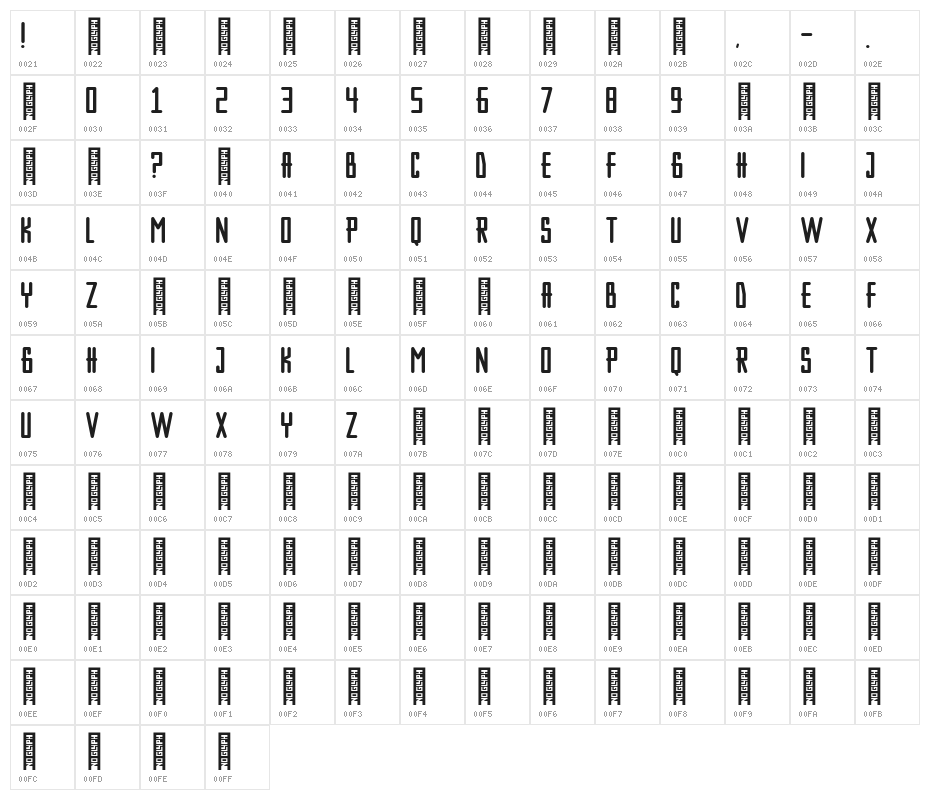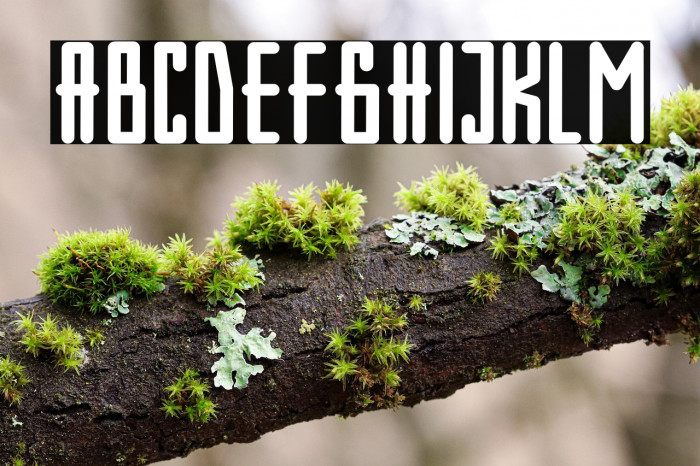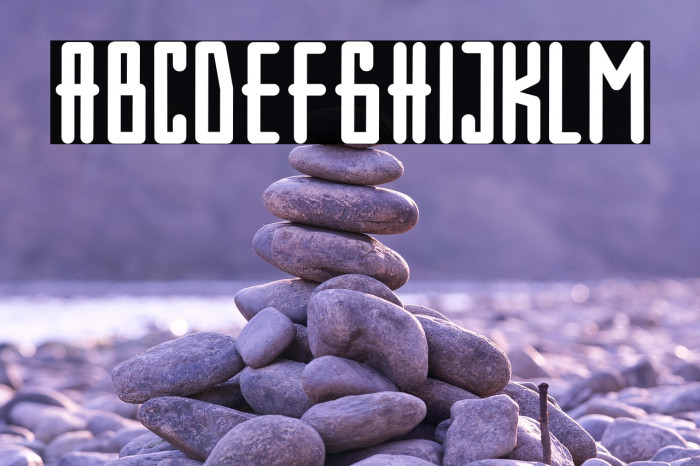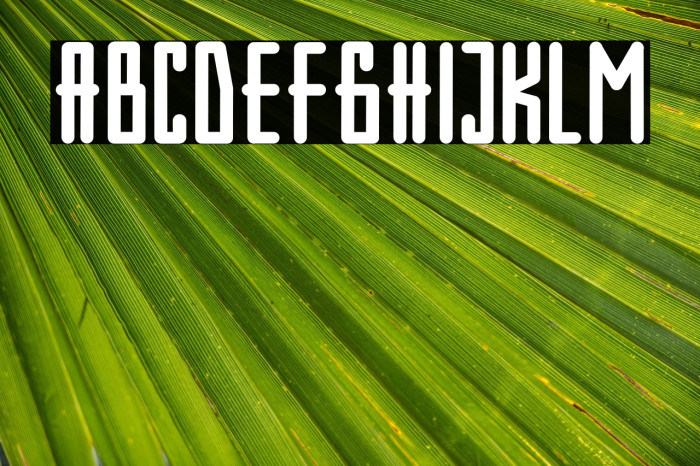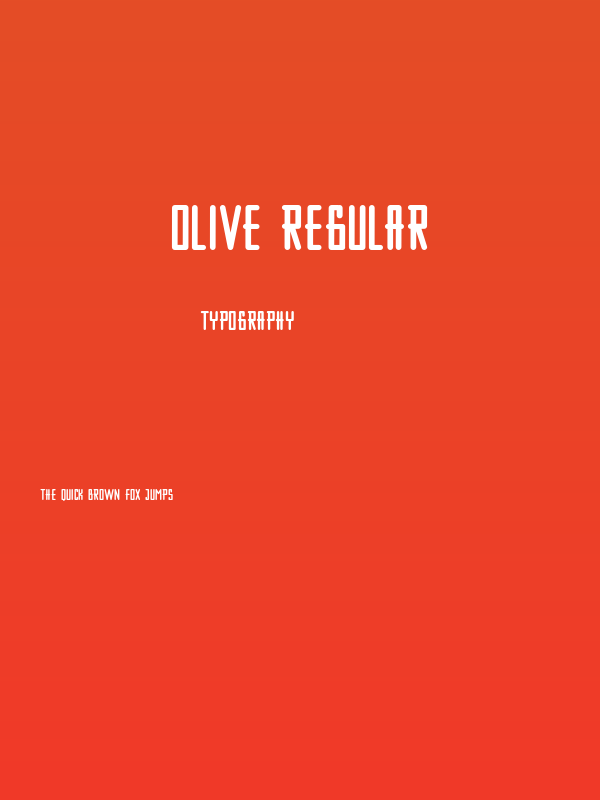
Olive Regular Font
Olive Regular Description
This font features a bold, geometric design with a modern and streamlined appearance. The characters are tall and narrow, with consistent stroke widths that give it a uniform look. The uppercase letters are particularly striking, with their elongated forms and sharp angles. The numbers follow the same design principles, ensuring a cohesive appearance across all characters. The font lacks special characters, focusing solely on alphanumeric characters. Its clean and structured style makes it suitable for various applications where a contemporary and impactful look is desired.